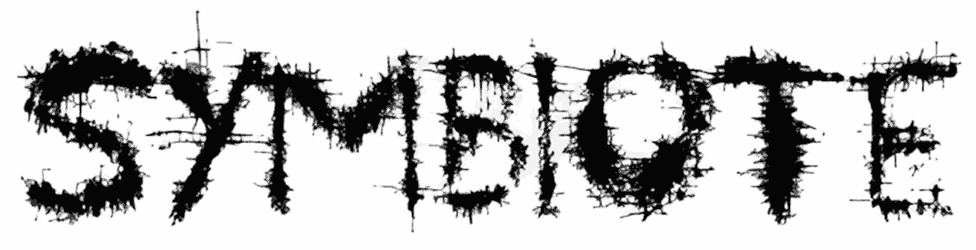
Symbiote Font
Designed byAbdi Adam
If you choose a mysterious font like Symbiote, you can shock your viewers as hell with just a headline. This unreadable letterform will provide a psychedelic vibe for your flyer, movie, or whatever project you are working on. Symbiote is able to create a nasty and dread design with only capital letters, and not having lowercase, numbers, and punctuation doesn’t reduce its power.